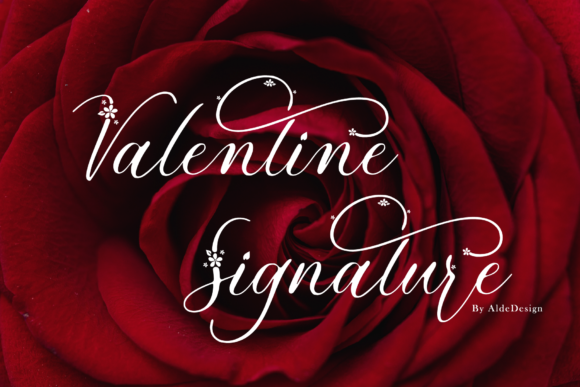
Introducing Valentine Signature Font – the epitome of beauty and elegance in the realm of script fonts. Designed by aldedesign, this stunning creation is a breathtaking light handwritten font, poised to inject a touch of luxury and sophistication into your design endeavors.
With its unique feel and captivating impact, Valentine Signature Font stands out from the crowd, leaving an unforgettable impression on all who encounter it. Its delicate strokes, reminiscent of a skilled calligrapher's hand, dance across the page, evoking a sense of timeless grace and charm.
This font is not merely a collection of letters; it is an expression of art, a visual masterpiece that transforms ordinary words into extraordinary statements. Its inherent versatility allows it to seamlessly adapt to a myriad of design projects, from wedding invitations and branding materials to social media posts and marketing campaigns.
Imagine the allure of your wedding invitations adorned with Valentine Signature Font, each letter flowing into the next with an effortless elegance that captures the essence of your special day. Or envision your brand logo radiating sophistication and charm, thanks to the distinctive character of this font, leaving a lasting imprint on the minds of your customers.
The possibilities are endless with Valentine Signature Font as your creative companion. Unleash your imagination and let this font guide you towards design excellence. Its beauty and versatility will elevate your projects to new heights, leaving a trail of admiration and awe in its wake.
With Valentine Signature Font, you hold the key to unlocking the door to design brilliance. Its PUA encoding ensures effortless access to a treasure trove of glyphs and swashes, empowering you to add intricate details and flourishes that transform your designs into masterpieces.
So, embark on a journey of creative exploration with Valentine Signature Font, the light handwritten font that will ignite your passion and leave an everlasting impact. Let your designs blossom with elegance, charm, and a touch of luxury, all thanks to the magic of this extraordinary font.